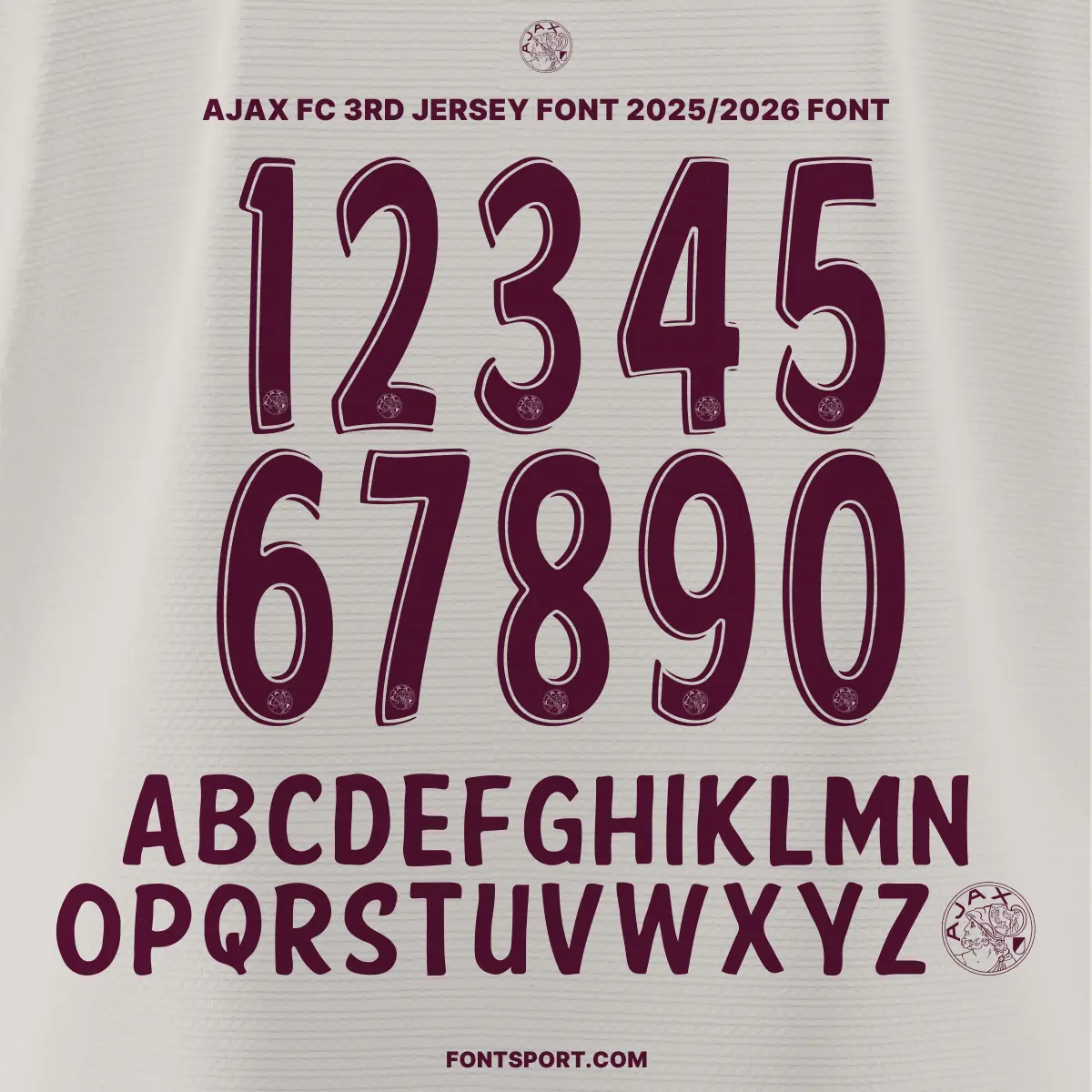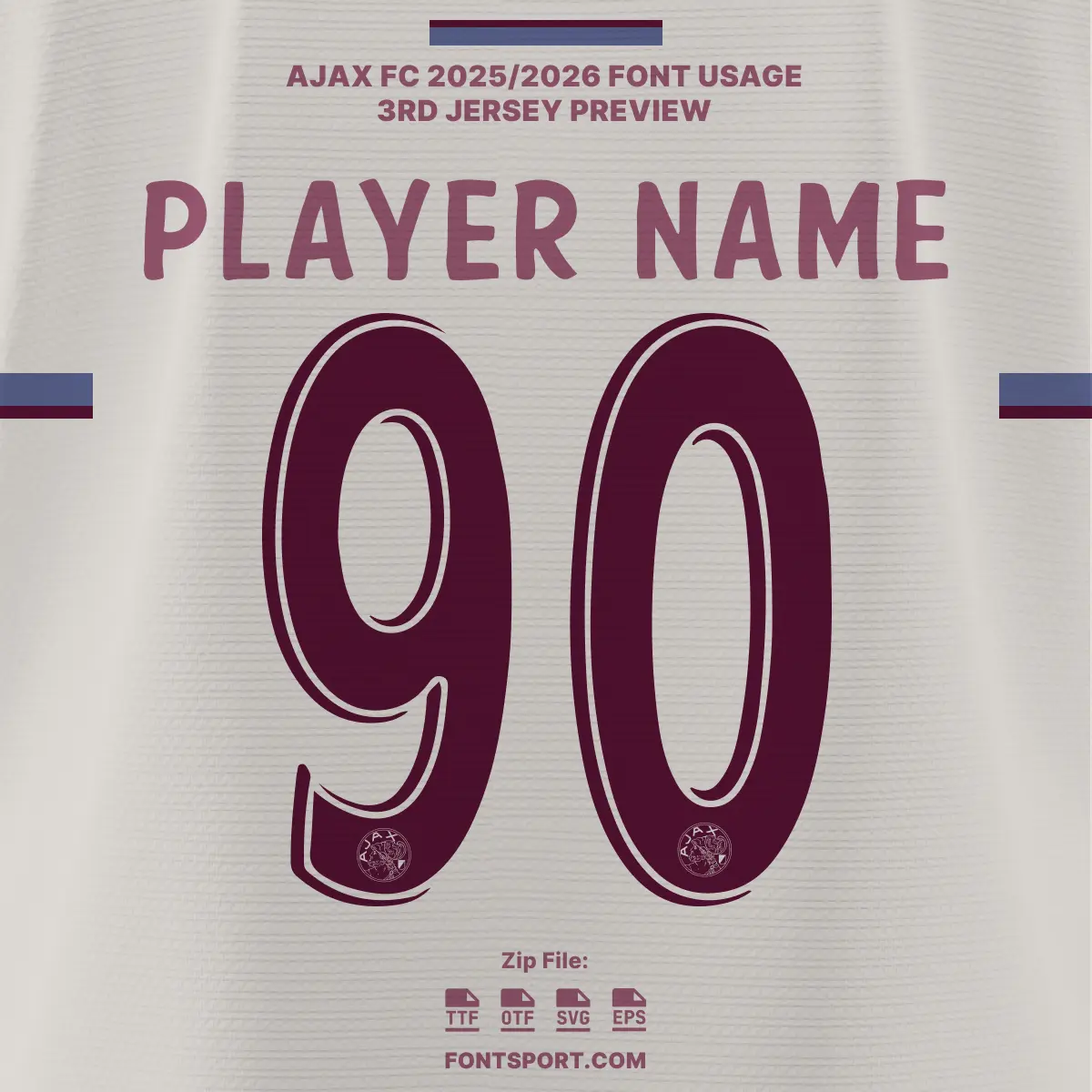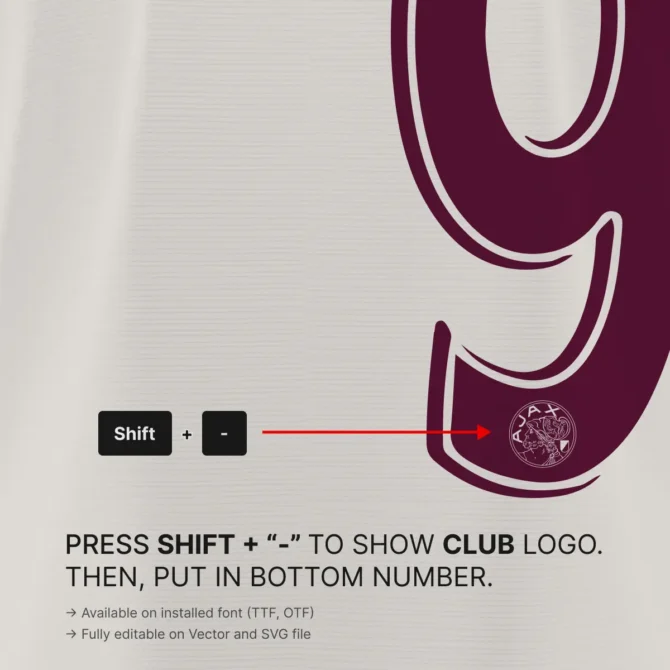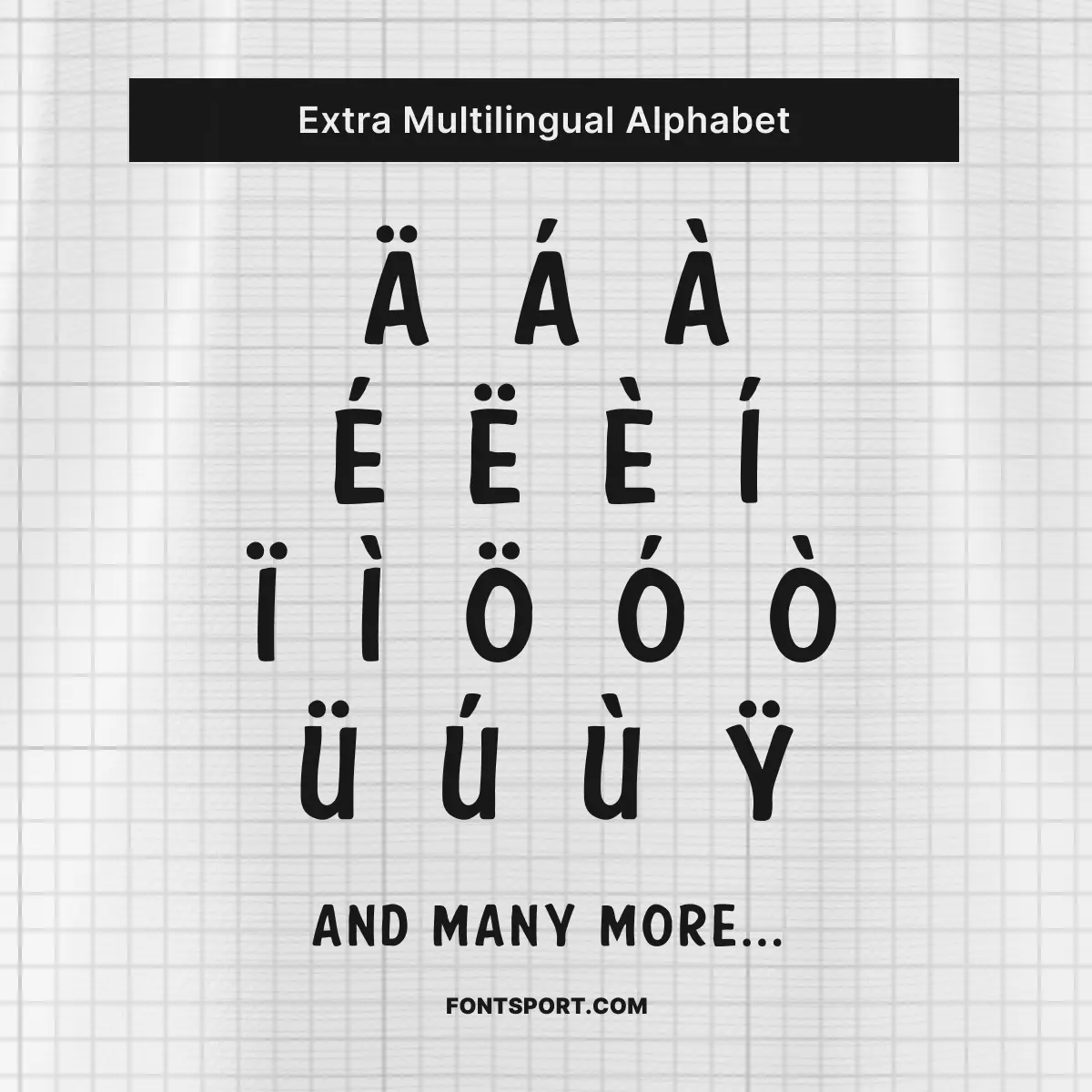
Ajax AFC 3rd Jersey Font Kit 2025/2026
The Ajax FC 2025/2026 Third Jersey Font Kit is the official typeface featured on Ajax Amsterdam’s third kit for the Eredivisie 2025/2026 season. Designed with a modern, sleek aesthetic, this font showcases sharp lines, balanced proportions, and an authentic Ajax crest detail embedded in the numbers—capturing the club’s iconic identity both on and off the pitch.
This exclusive typeface is more than just functional—it’s a statement of heritage and innovation. With crisp readability and bold visual impact, it’s perfect for jersey mockups, fan merchandise, football graphics, and matchday posters. Whether you’re recreating Ajax’s official third kit design or producing standout visuals for social media, this font kit ensures professional-grade authenticity.
• Uppercase A–Z & numbers 0–9 in Ajax’s authentic 2025/2026 third kit style
• Exclusive Ajax crest glyph embedded in the number set
• Multilingual Latin alphabet support with diacritics for European languages
Ajax FC in the 2025/2026 Season
The 2025/2026 Eredivisie season is another chapter in Ajax Amsterdam’s illustrious history. Known for producing world-class talent and maintaining a strong European presence, Ajax combines tradition with modern football excellence. This Third Jersey Font Kit reflects the club’s unique identity and bold kit design for the season—bridging heritage with creativity for designers and fans alike.
5. The available characters include uppercase letters (for player names), and numbers (for player jersey numbers).
Ajax FC 2025/2026 Third Jersey Font Kit – Official Eredivisie typeface featuring numbers 0–9 and uppercase A–Z with Ajax crest detail.